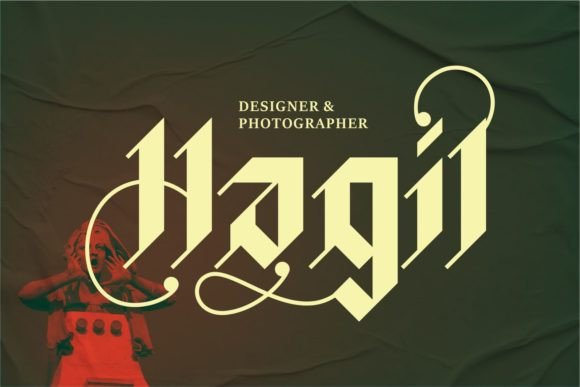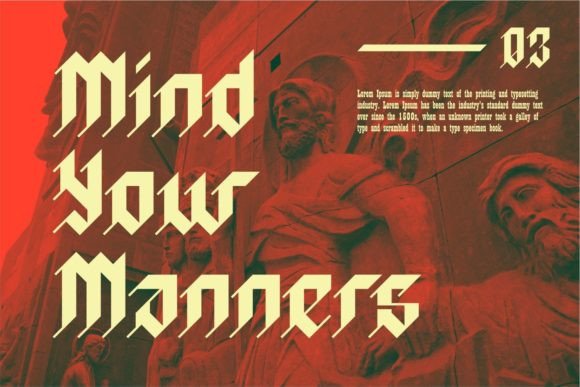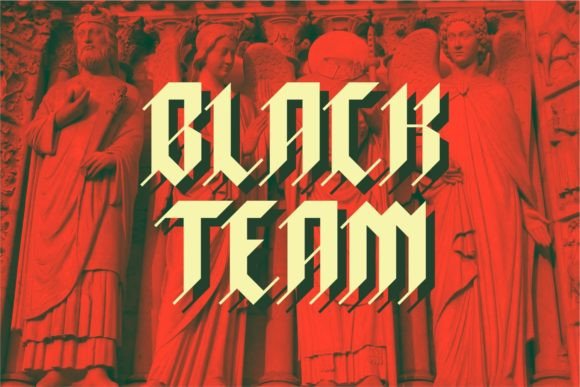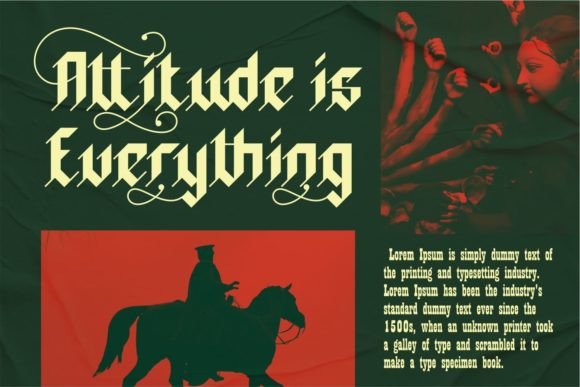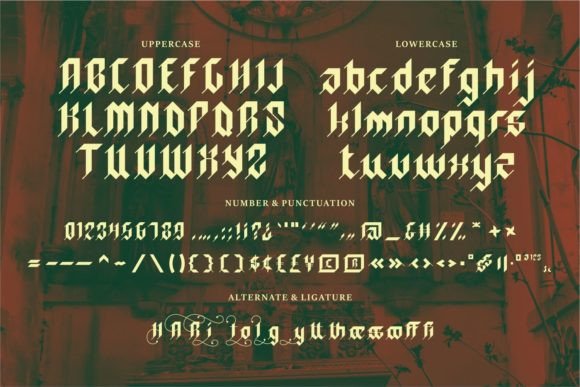
Introducing Afrodit Font: The Epitome of Boldness and Sophistication
In the realm of typography, few fonts manage to strike a balance between strength and elegance. Afrodit Font, however, is an exception. This cool and bold blackletter font is designed to make a statement, exuding power and sophistication in equal measure. Its sleek and angular design, characterized by sharp serifs and clean lines, makes it an ideal choice for projects that demand attention and class.
The Design Philosophy Behind Afrodit
Afrodit Font is the result of meticulous design and a deep understanding of typographic principles. The letters are crafted with precision, featuring sharp serifs that add a touch of sophistication and clean lines that contribute to its sleek appearance. The font’s bold nature is not just about being eye-catching; it’s also about conveying a sense of strength and reliability. This makes Afrodit perfect for use in branding, editorial design, and signage, where making a strong visual impact is crucial.
The Unique Characteristics of Afrodit
One of the standout features of Afrodit Font is its tight spacing. Unlike fonts that have ample space between letters, Afrodit’s dense composition creates a sense of intensity and urgency. This characteristic not only adds to its bold aesthetic but also enhances readability, making it suitable for both digital and print media. The combination of sharp serifs, clean lines, and tight spacing results in a font that is both visually striking and highly legible.
Applications of Afrodit Font
Afrodit Font’s versatility is one of its most compelling attributes. Its bold and sophisticated design makes it suitable for a wide range of applications. In branding, Afrodit can be used to create logos and wordmarks that convey strength and elegance. For editorial design, it can be employed for headings and titles, adding a touch of class and sophistication to magazines, newspapers, and digital publications. Additionally, its durability and legibility make it an excellent choice for signage, where the message needs to be clear and impactful from a distance.
Why Designers and Crafters Love Afrodit
Designers and crafters appreciate fonts that offer both aesthetic appeal and functionality. Afrodit Font ticks all the right boxes. Its unique blend of boldness and elegance allows creative professionals to push the boundaries of their designs. Whether it’s creating a bold statement piece or adding a touch of sophistication to a project, Afrodit provides the tools to elevate any design. Moreover, its legibility and versatility ensure that it can be used across various mediums, from digital platforms to print materials.
How to Use Afrodit Effectively in Your Designs
To make the most of Afrodit Font, consider the following tips:
- Pair it with contrasting fonts: Afrodit’s bold nature makes it an excellent choice for headlines. Pair it with lighter, more delicate fonts for body text to create visual contrast and hierarchy.
- Experiment with colors: While Afrodit looks stunning in black, don’t be afraid to experiment with other colors. Metallic tones, deep blues, and rich reds can add an extra layer of sophistication.
- Consider the context: Ensure that Afrodit’s boldness aligns with the message you’re trying to convey. It’s perfect for making statements but might not be suitable for more subtle or whimsical projects.
Afrodit Font is more than just a typeface; it’s a design statement. Its unique blend of boldness, elegance, and sophistication makes it an invaluable tool for designers and crafters looking to make an impact. Whether you’re working on a branding project, editorial design, or signage, Afrodit offers the perfect combination of style and substance. By incorporating Afrodit into your typographic arsenal, you can create designs that are not only visually striking but also memorable and impactful.